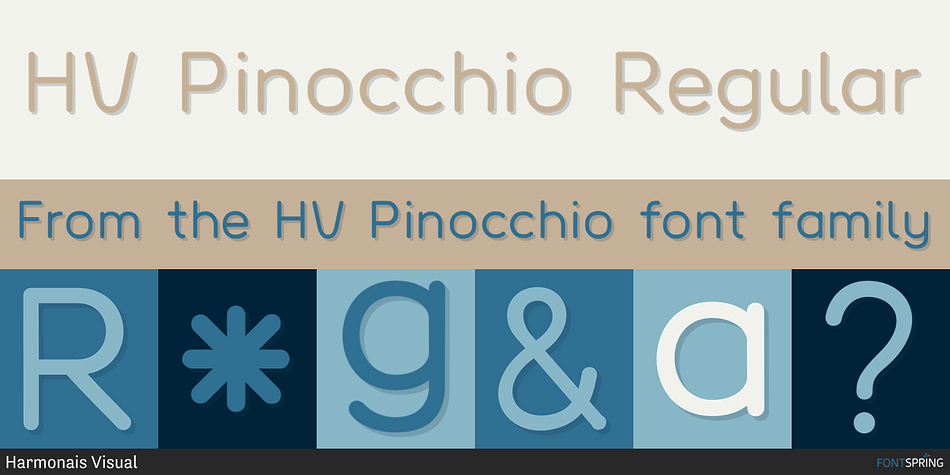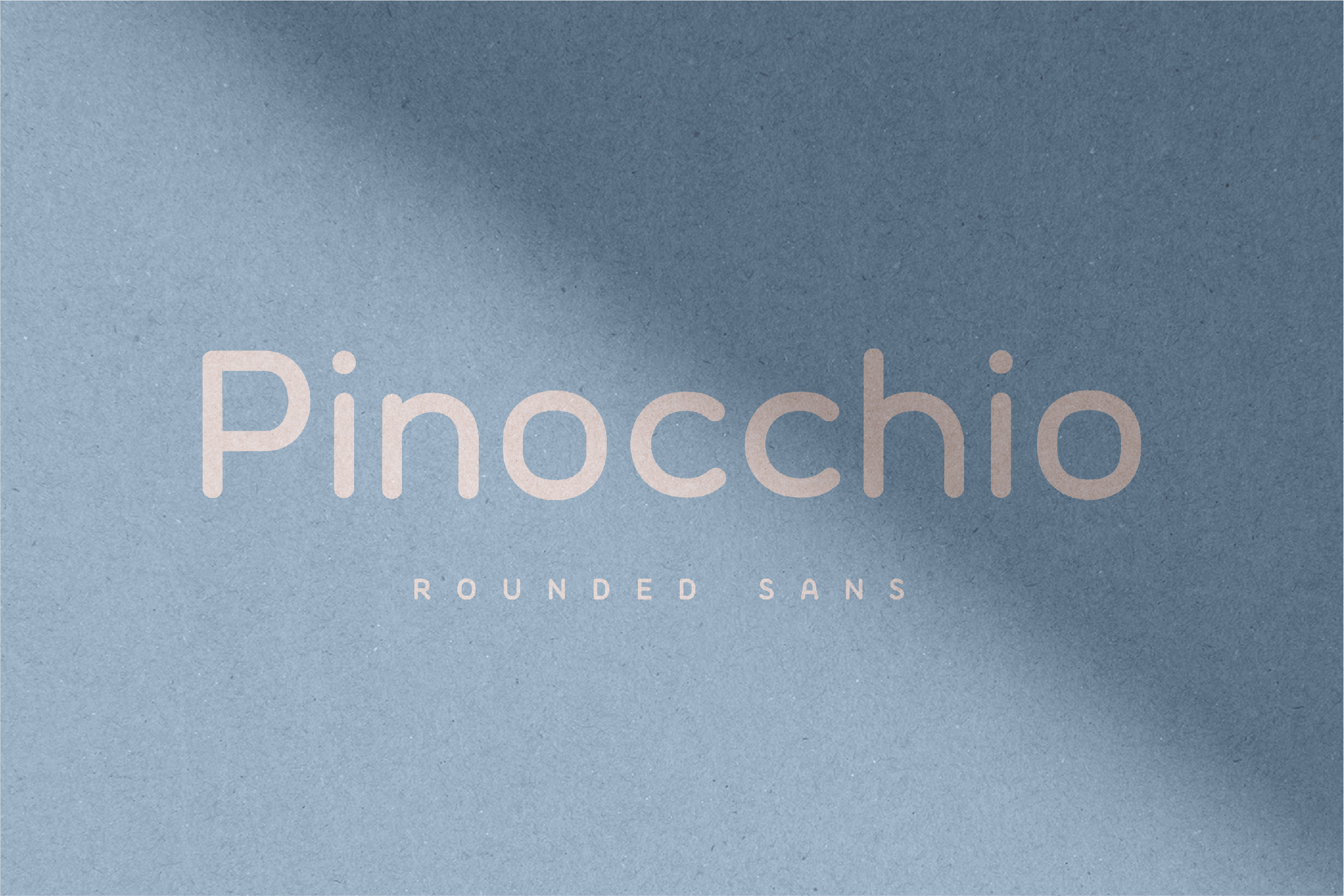
HV Pinocchio Regular
HV Pinocchio is a sans serif font family. This typeface has four styles and was published by Harmonais Visual.
Pinocchio typeface was designed by Harmonais Visual. A rounded sans serif typeface, with clean, humanist, and kid-friendly look. This font is perfectly suitable for creating cute, kid-friendly designs such as logos, children’s books, toys packaging, and more.